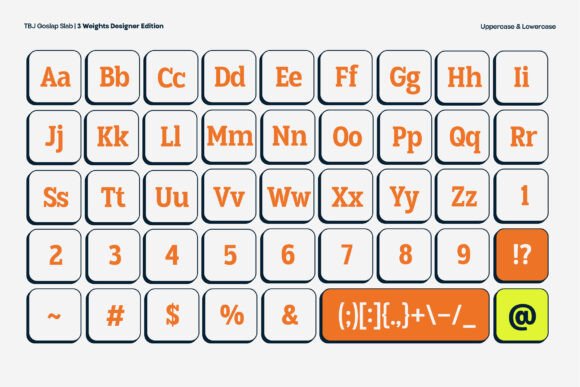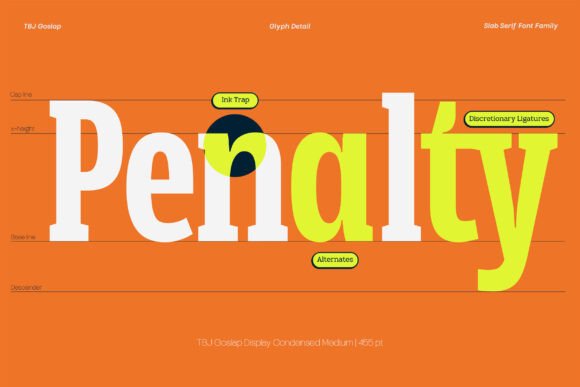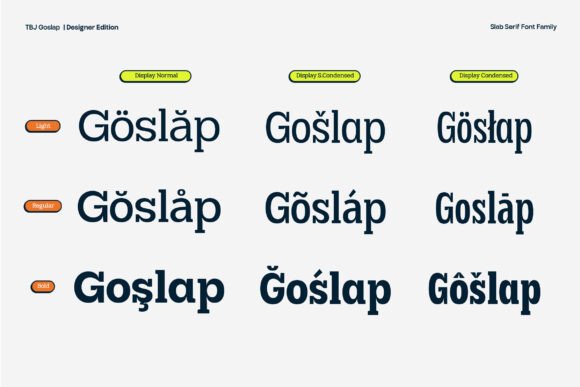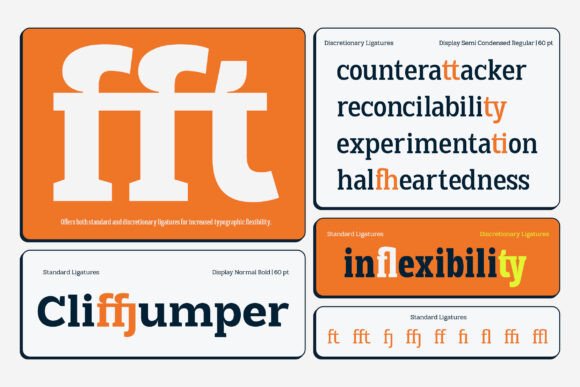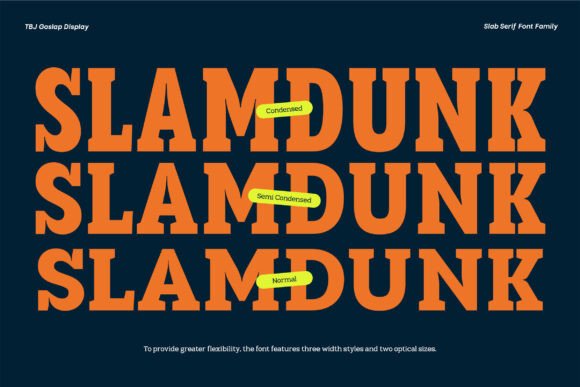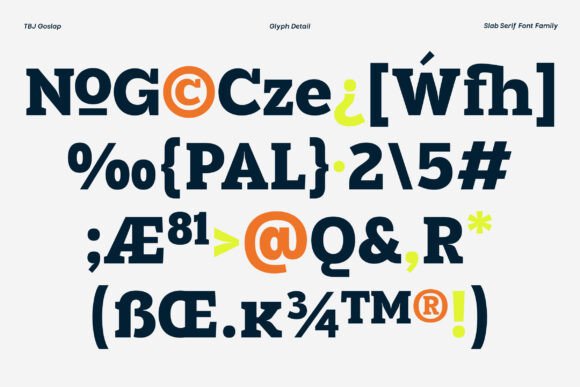
Introducing Goslap Font: The Ultimate Slab Serif for Bold and Playful Designs
In the world of typography, a good font can make all the difference in creating visually stunning designs. If you’re a designer or craftsperson looking for a font that exudes energy, playfulness, and boldness, look no further than Goslap Font. This vibrant slab serif font is designed to turn heads and add a touch of personality to your projects.
What is Goslap Font?
Goslap Font is a slab serif font that combines the classic boldness of slab serifs with a fun, retro-inspired aesthetic. Its strong letterforms and playful outline make it perfect for creating eye-catching headlines, posters, branding, and creative projects. With 9 different styles to choose from, Goslap is a versatile font that can adapt to a wide range of design needs.
Key Features of Goslap Font
• Bold and Playful Design: Goslap Font features bold letterforms with a playful outline, making it perfect for designs that require a touch of personality and whimsy.
• Retro-Inspired Aesthetic: The font’s retro-inspired design makes it ideal for projects that require a vintage or nostalgic feel.
• 9 Different Styles: Goslap Font comes in 9 different styles, allowing you to choose the perfect variation for your design.
• Slab Serif Design: The font’s slab serif design makes it perfect for creating eye-catching headlines and titles.
Uses for Goslap Font
Goslap Font is perfect for a wide range of design projects, including:
• Headlines and Titles: The font’s bold and playful design makes it perfect for creating eye-catching headlines and titles.
• Posters and Flyers: Goslap Font is ideal for creating posters and flyers that require a bold and attention-grabbing design.
• Branding and Logo Design: The font’s unique and playful design makes it perfect for creating memorable brand identities and logos.
• Creative Projects: Goslap Font is perfect for creative projects such as art journals, scrapbooking, and other craft projects.
Why Choose Goslap Font?
With so many fonts available, why choose Goslap Font? Here are just a few reasons:
• Unique Design: Goslap Font features a unique and playful design that will add a touch of personality to your projects.
• Versatility: The font’s 9 different styles make it versatile and adaptable to a wide range of design needs.
• Easy to Read: Despite its bold and playful design, Goslap Font is easy to read, making it perfect for body text and headlines.
Tips for Using Goslap Font
Here are a few tips for using Goslap Font in your designs:
• Use it as a Headline Font: Goslap Font is perfect for creating eye-catching headlines and titles.
• Experiment with Different Styles: The font’s 9 different styles make it perfect for experimenting with different looks and feels.
• Pair it with Other Fonts: Goslap Font pairs well with other fonts, making it perfect for creating unique and interesting typography.
In conclusion, Goslap Font is a vibrant and energetic slab serif font that combines boldness with a fun, retro-inspired aesthetic. With its strong letterforms, playful outline, and 9 different styles, Goslap is perfect for eye-catching headlines, posters, branding, and creative projects. Whether you’re a designer or craftsperson, Goslap Font is a great addition to your font collection.